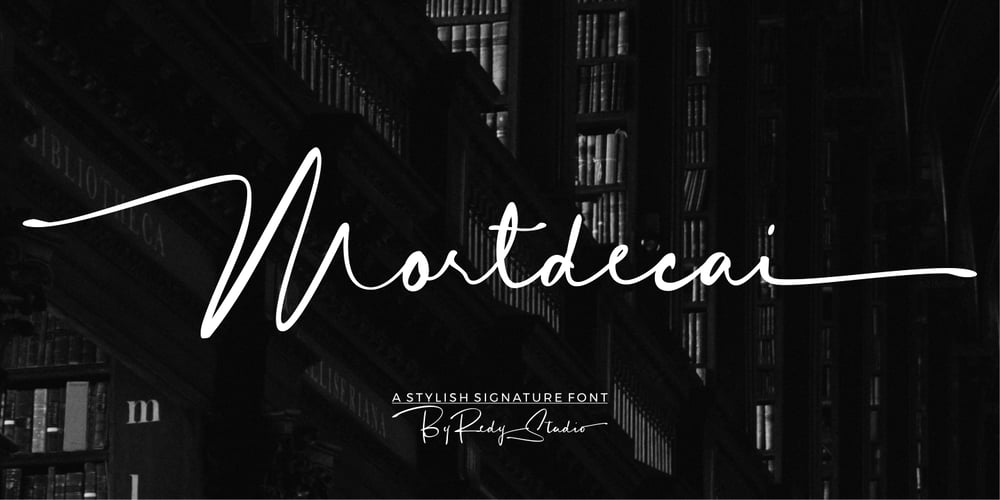
Mortdecai Script Font Family was designed by Nurul Fajri Redy and published by Redy Studio. Mortdecai Script contains 1 styles and family package options. Mortdecai is a luxurious signature font that’s perfect for any branding, logo design, and much more. Along with its OpenType features, the unique structure of this typeface makes it highly usable, easy to work with, and elegant in all sizes. The result is really easy to use, professional and elegant. We’re sure you will fall in love with it! All the features of this typeface were specially made and interpreted to offer a better and more modern experience while working on your designs. Thanks to its specially designed structure it’s highly usable, easy to work with, and extremely elegant on all sizes – from small header titles to huge logo designs. This is a luxury signature font especially for you! Mortdecai features: A full set of upper & lowercase characters Numbers & punctuation Ligatures Uppercase beginning swashes Lowercase ending swashes Stylistic alternatives Accented characters PUA Encoded Characters – Fully accessible without additional design software. Feel free to give me a message if you have a problem or question. Thank you so much for taking the time to look at one of our products.